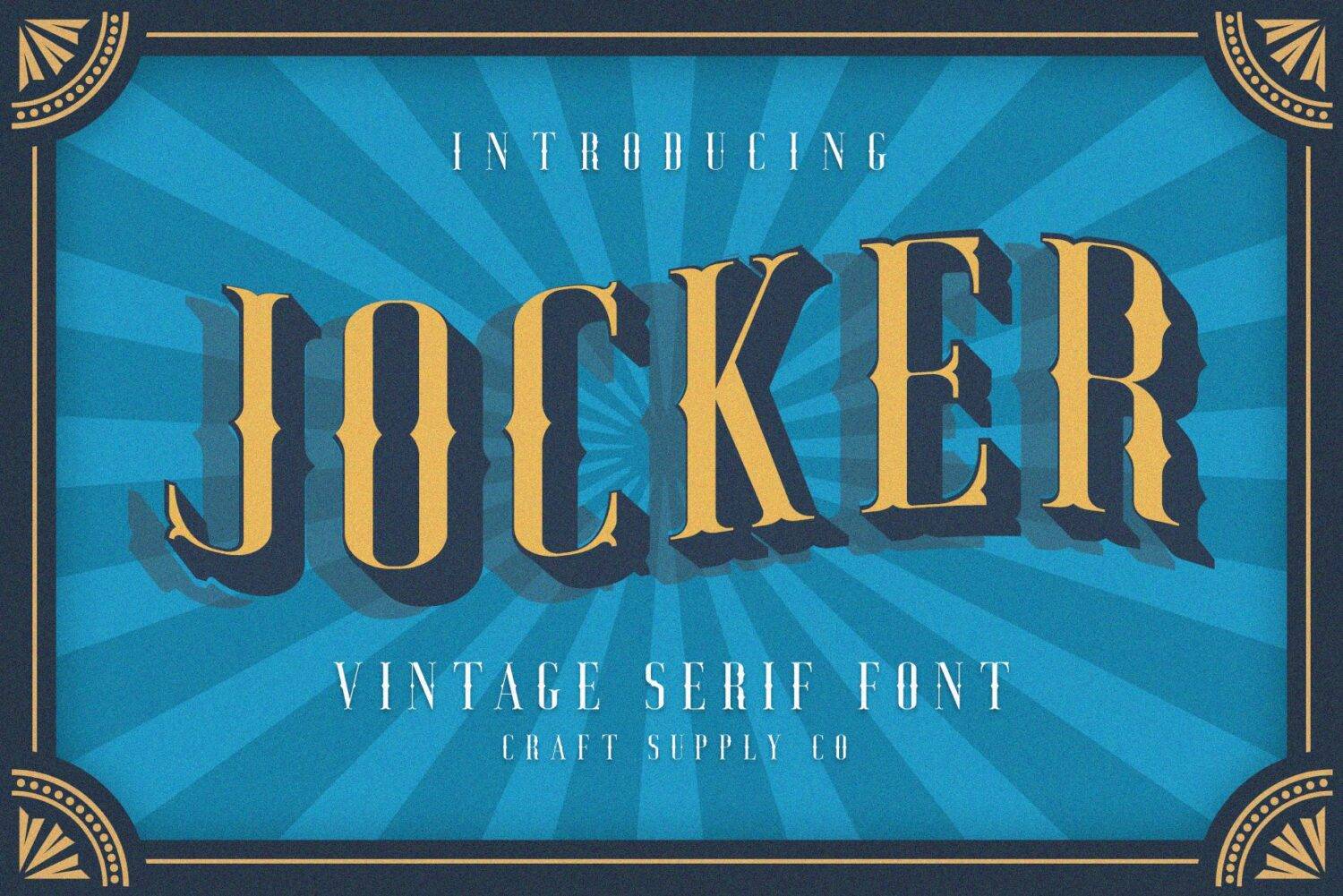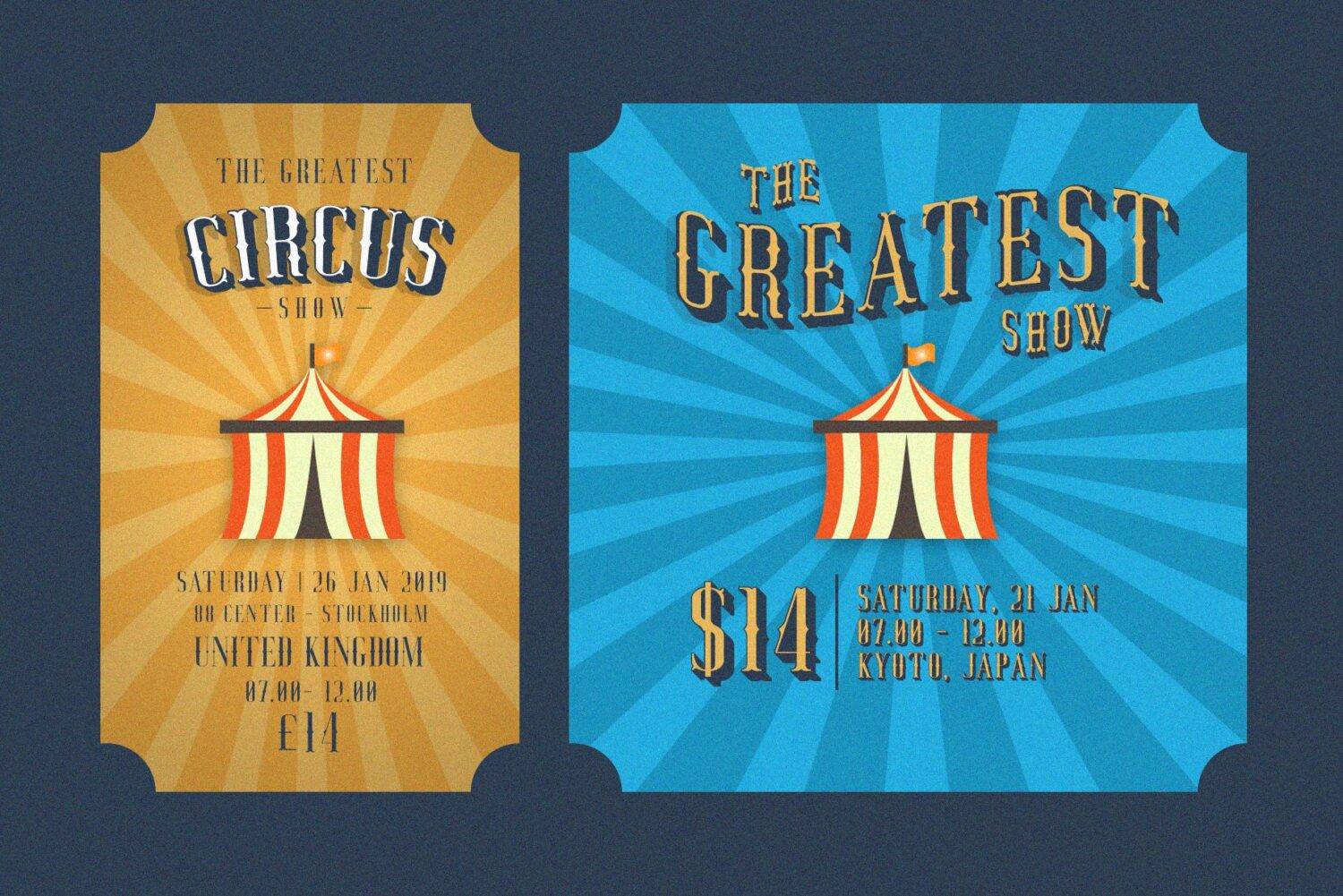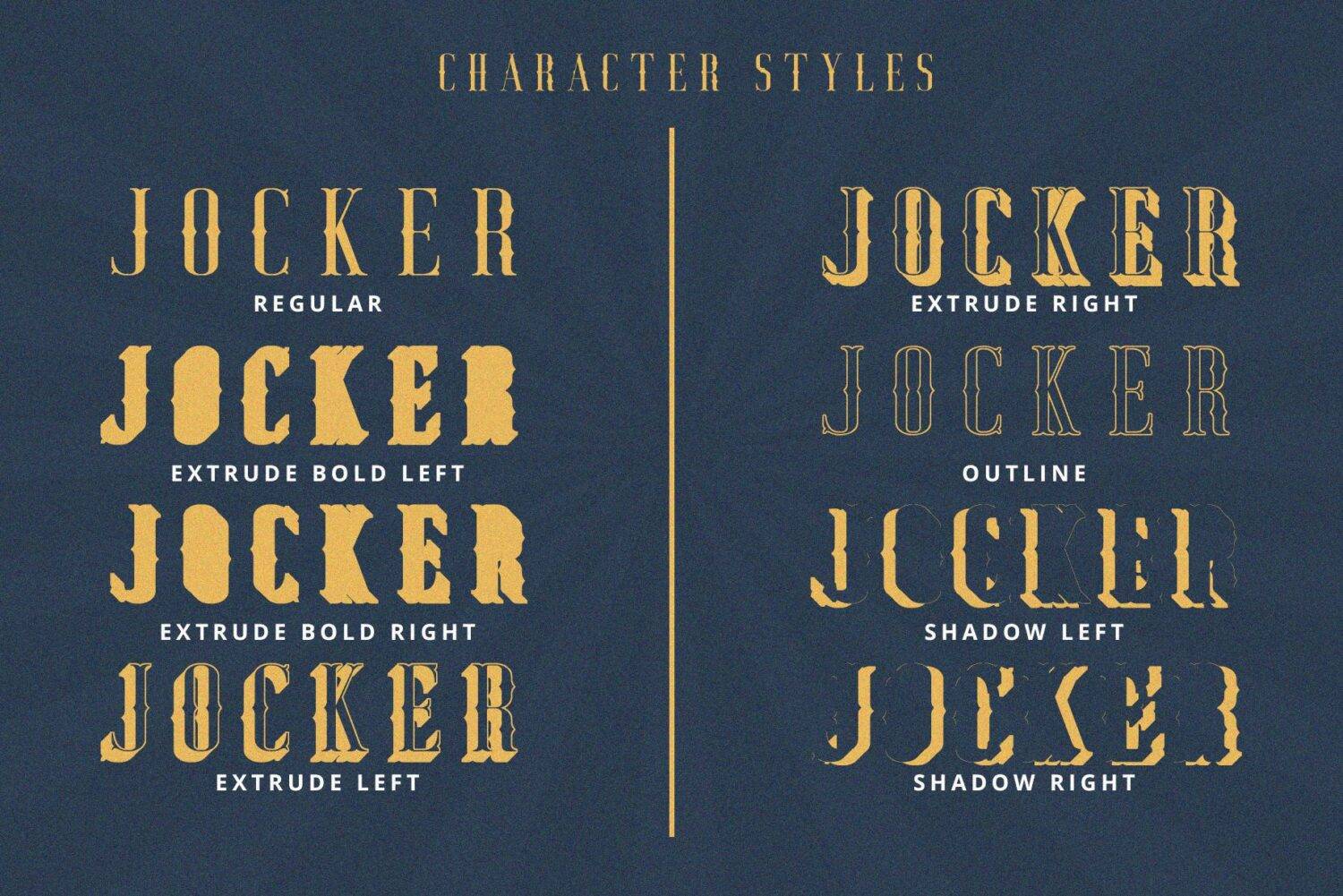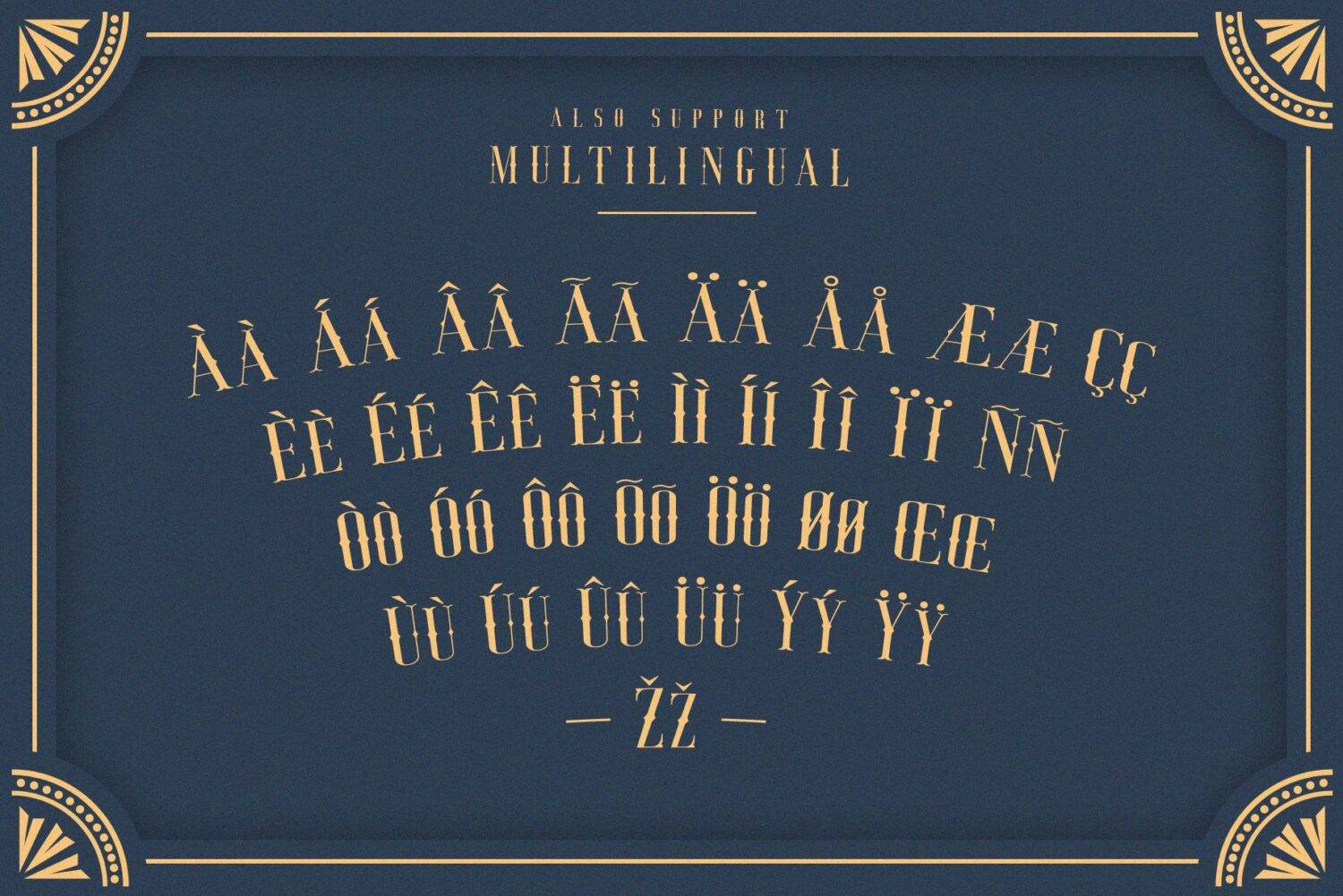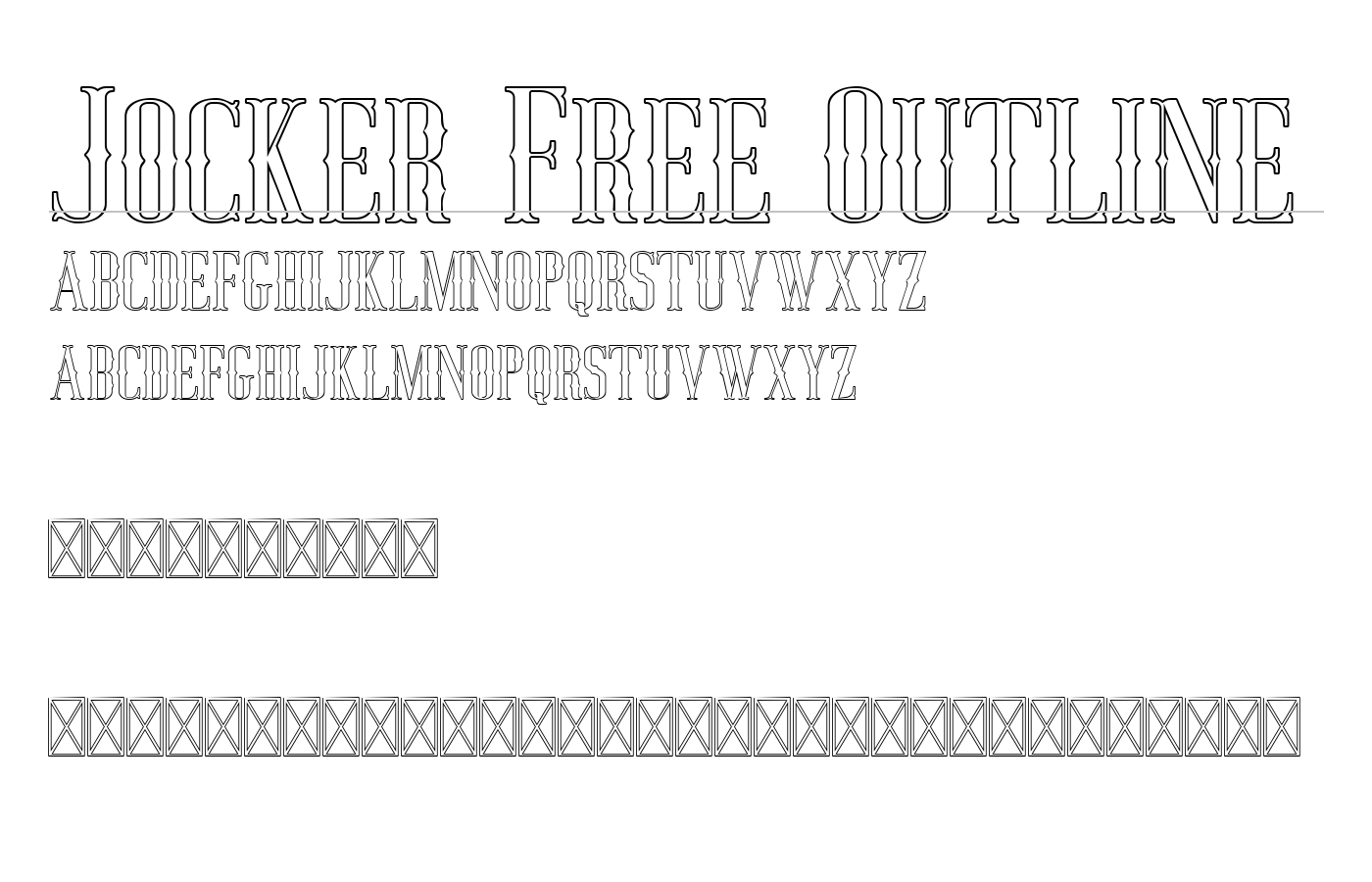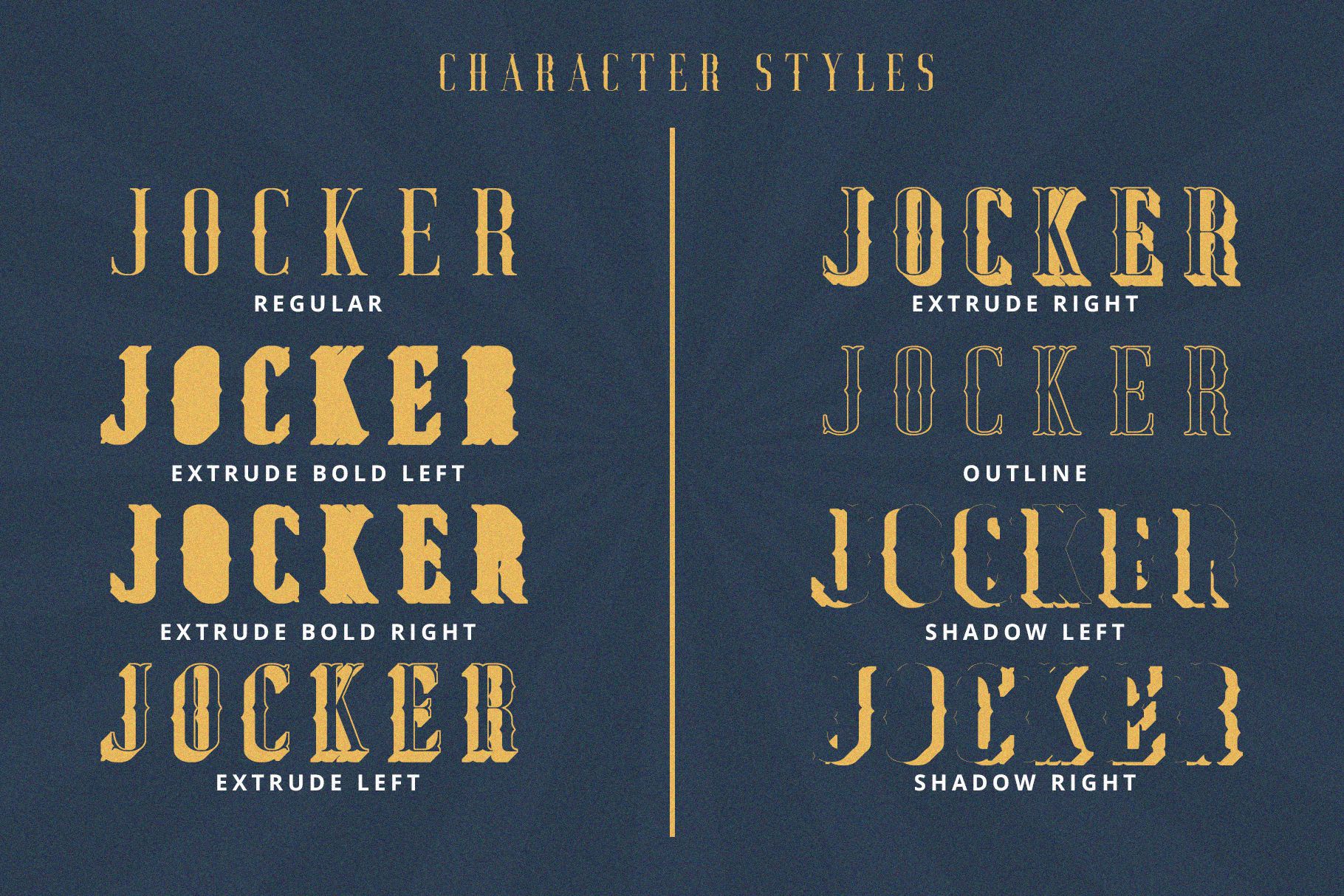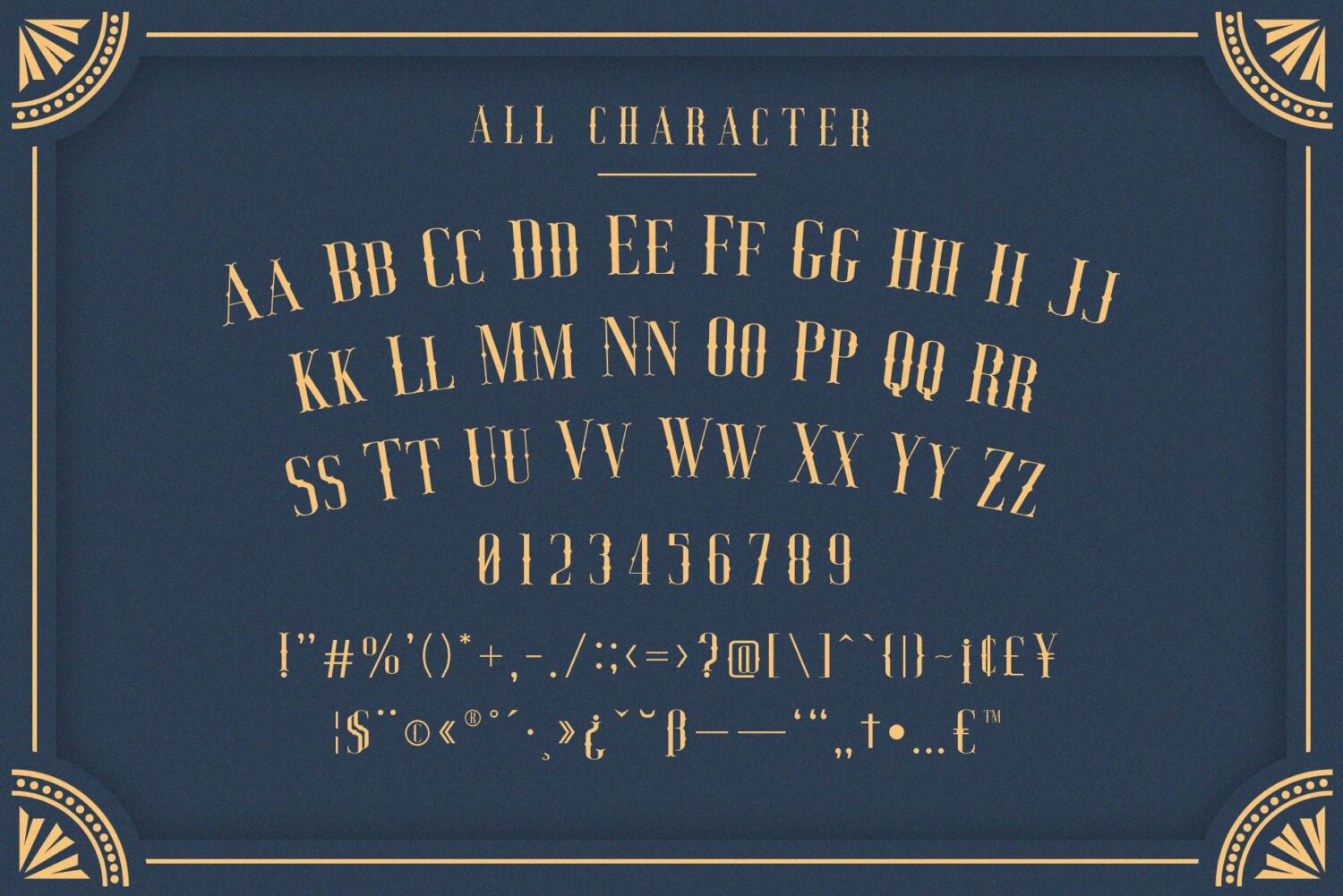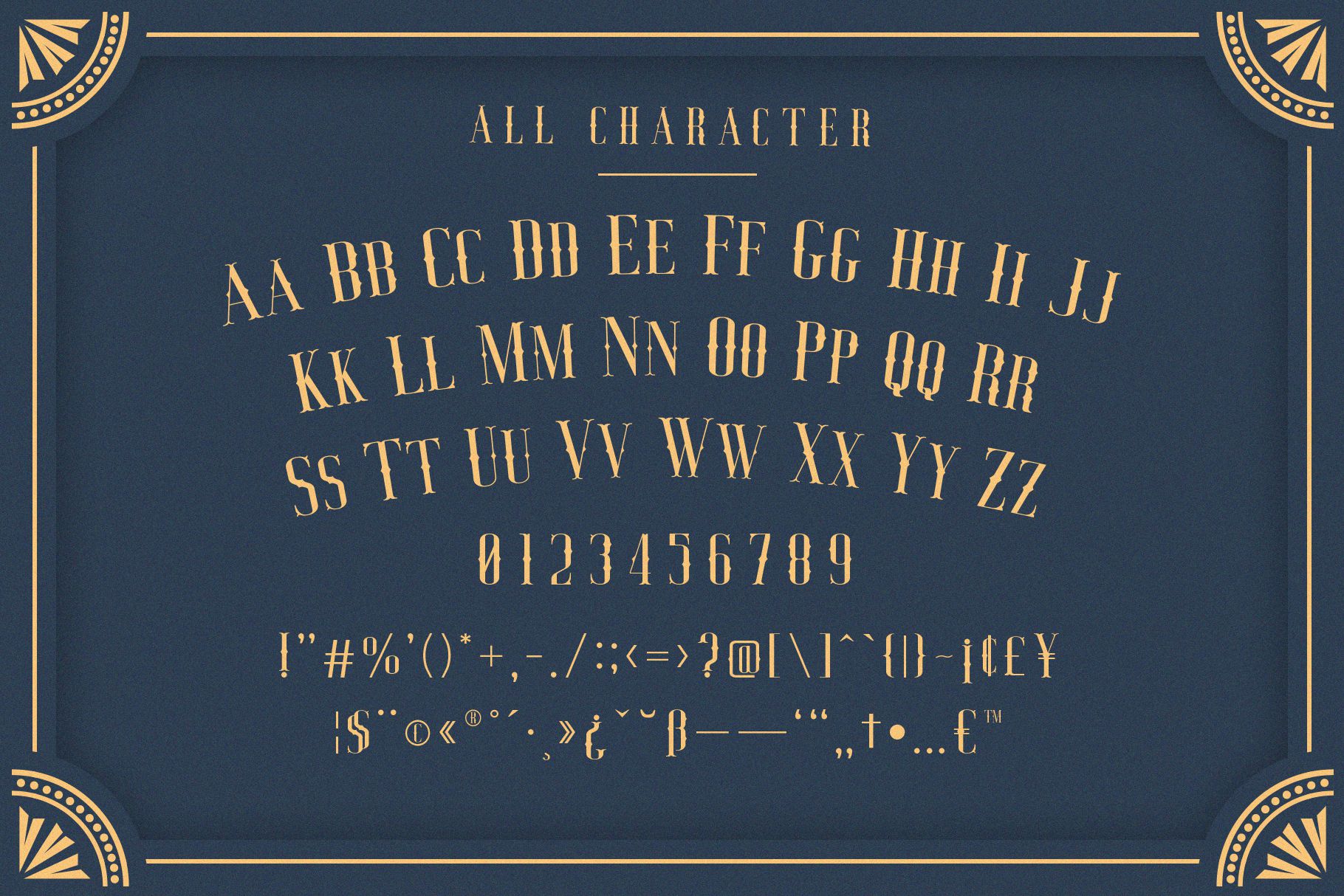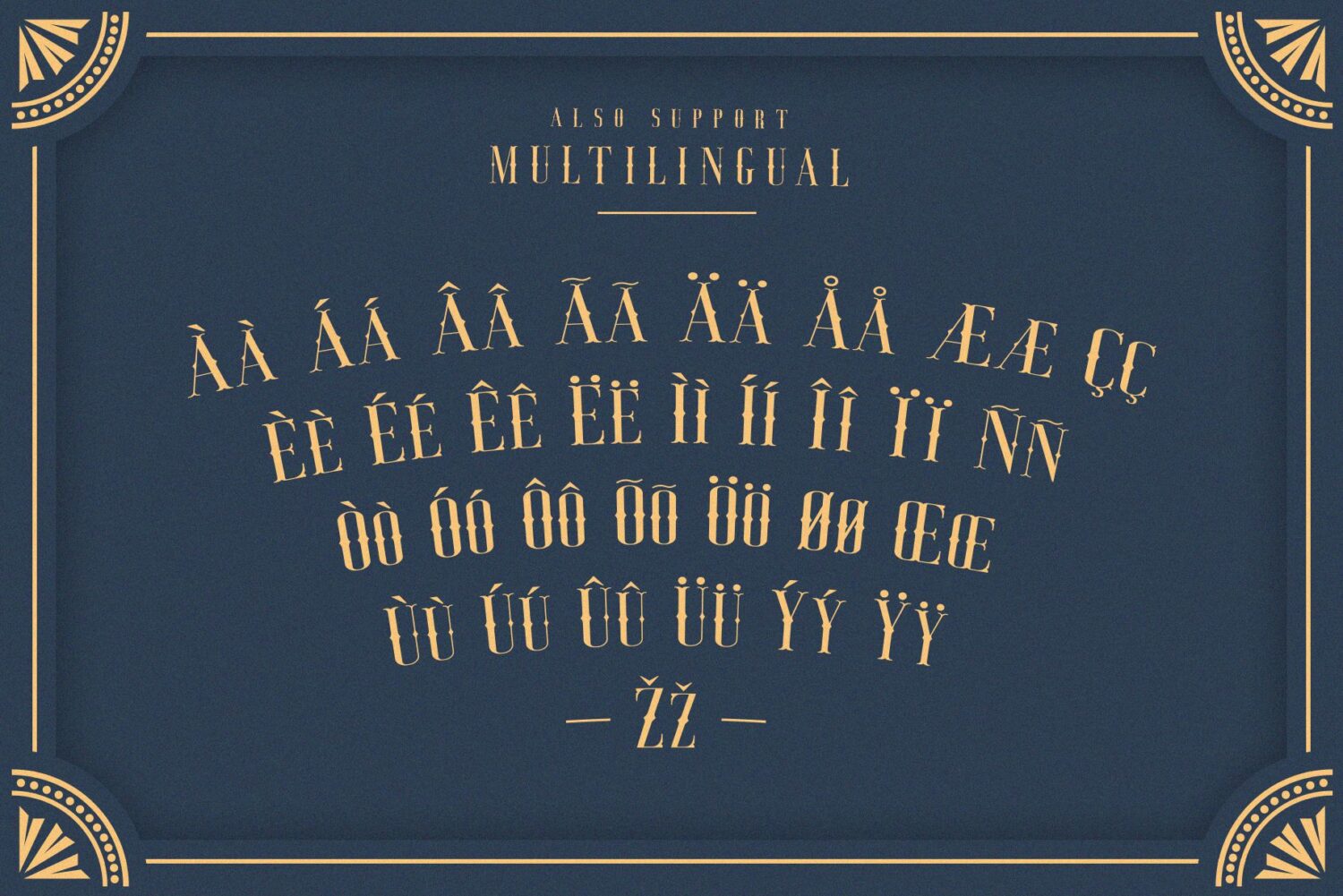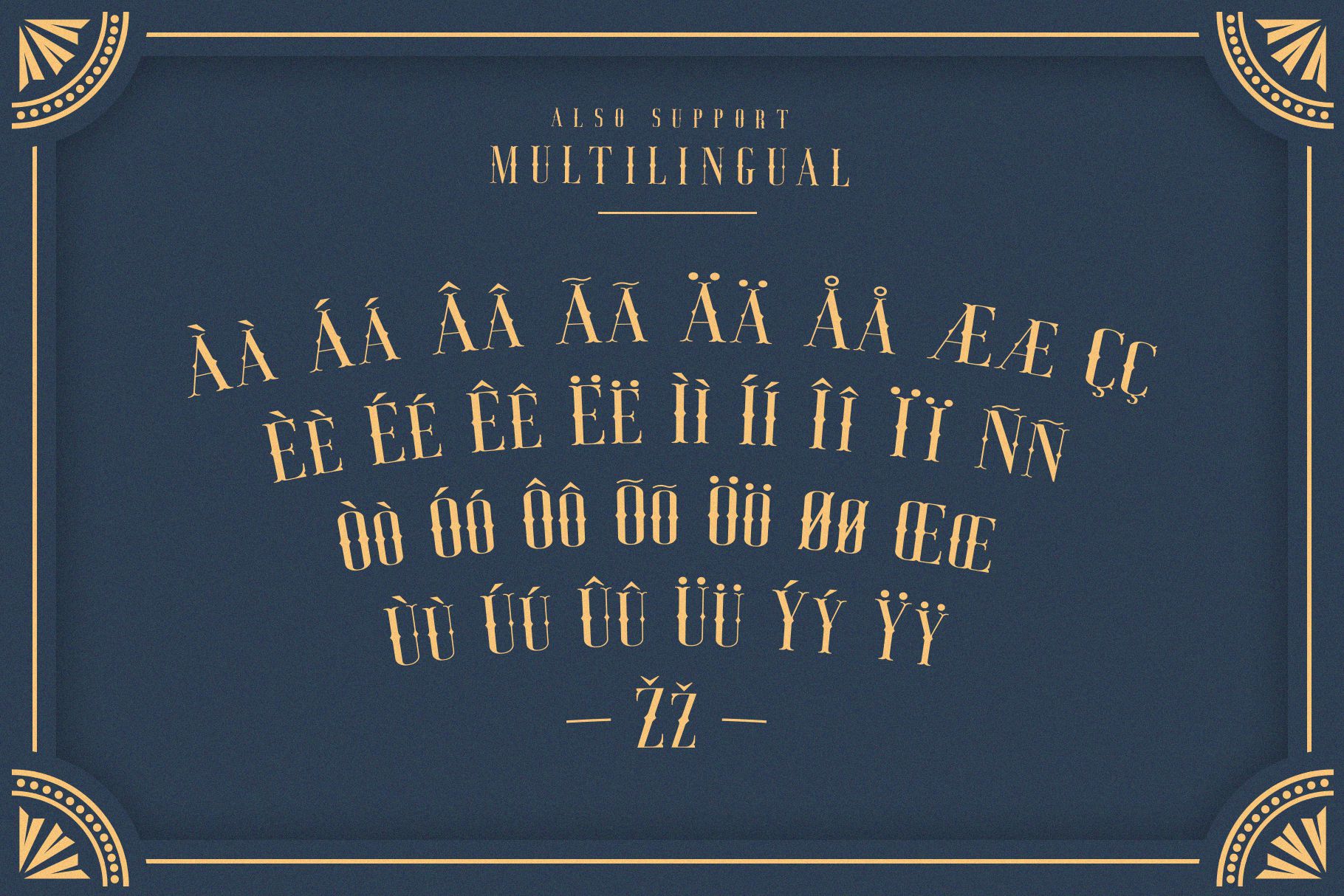
Jocker is a decorative slab serif font with a vintage Western flair, featuring tall, condensed letterforms and sharp, angular serifs. Its outline style adds a bold, eye-catching effect, making it perfect for headlines, posters, and branding that seek a nostalgic or adventurous vibe. This font works well in display settings where a strong, stylish statement is needed.
Jocker
About Jocker
| Font family | Jocker |